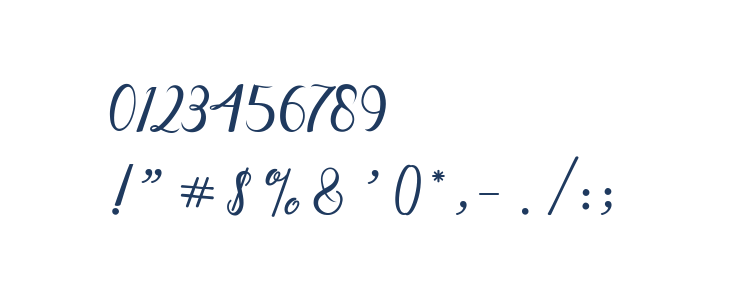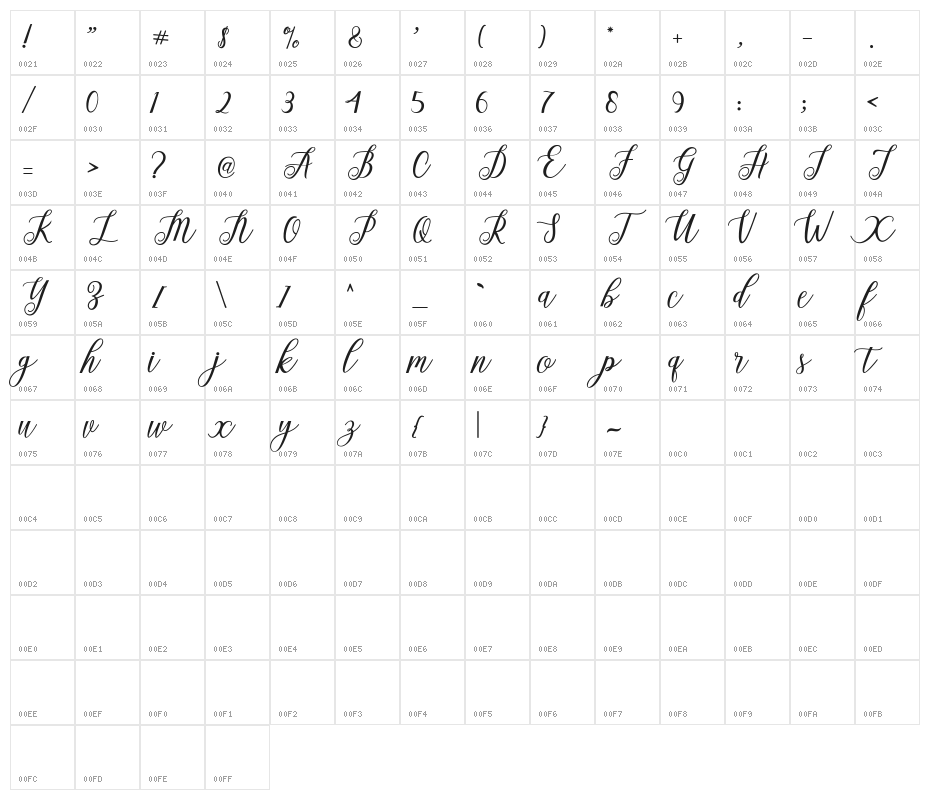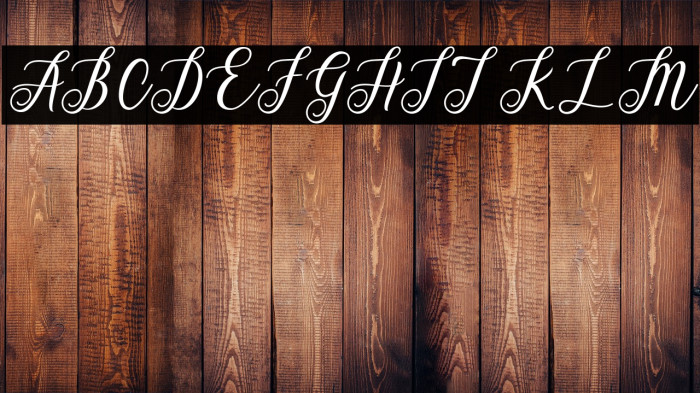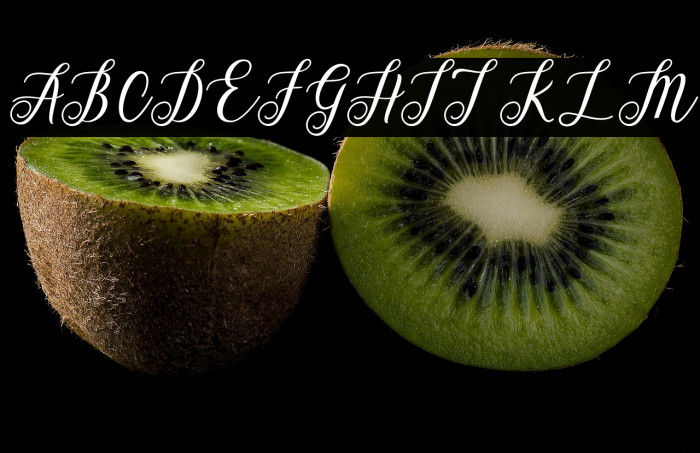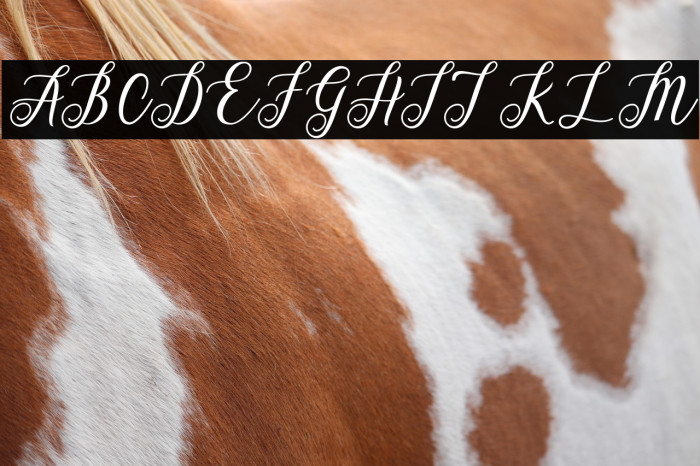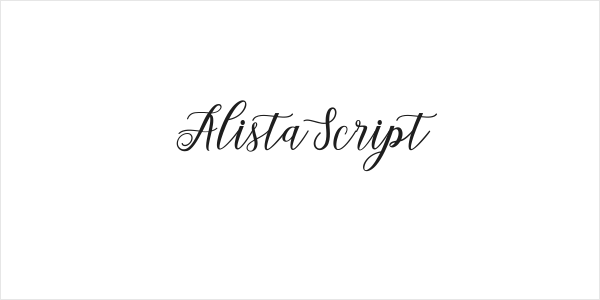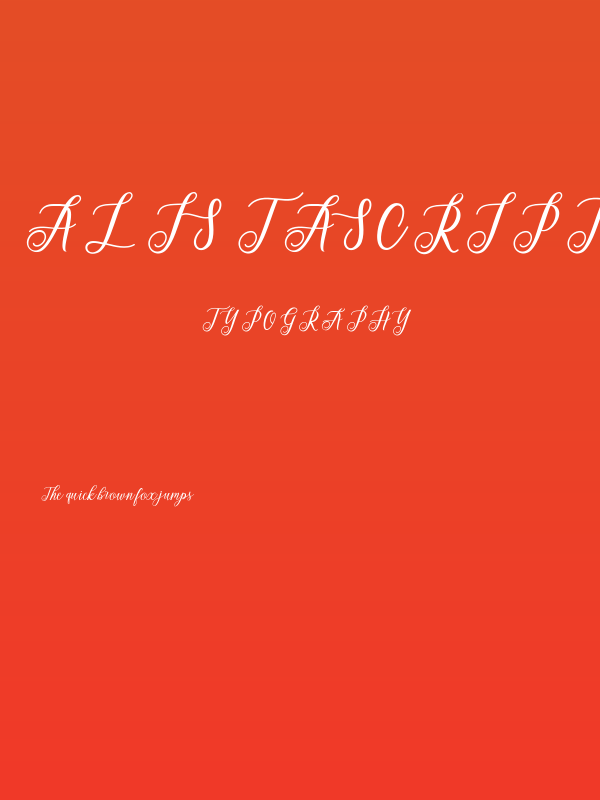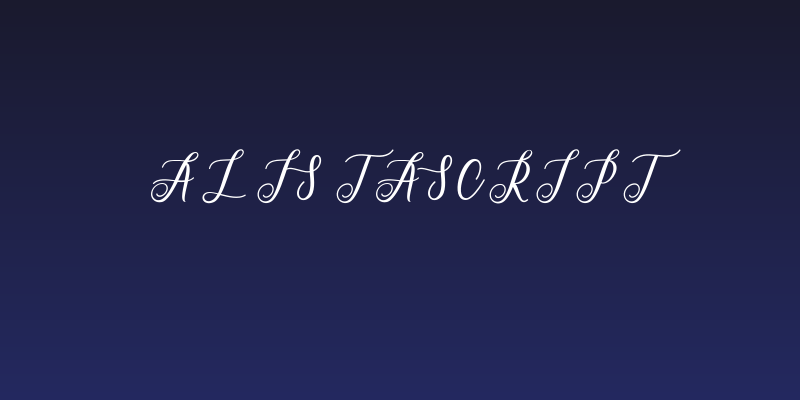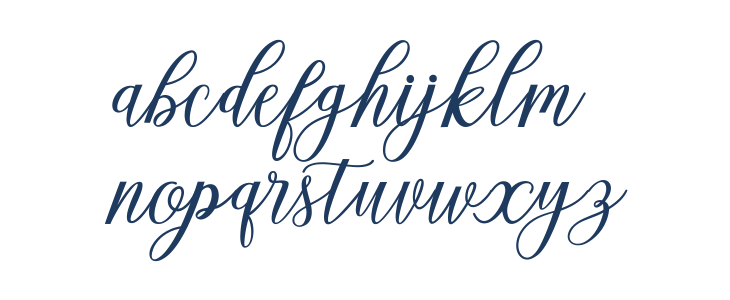
AlistaScript Font
AlistaScript Description
This elegant script font features flowing, cursive strokes that exude sophistication and grace. The uppercase letters are characterized by their intricate loops and swirls, creating a sense of movement and fluidity. The lowercase letters maintain a consistent style, with smooth, rounded forms that complement the uppercase set. The numerals are designed with a similar flair, ensuring a cohesive look across all characters. Special characters are thoughtfully integrated, maintaining the font's overall aesthetic. This font is perfect for projects that require a touch of elegance and refinement.
| Overall Style | Elegant |
| Use Case | Logos, Invitations, Decorative text |
| Proposed Projects | Ideal for wedding invitations, elegant branding, greeting cards, and luxury packaging. |